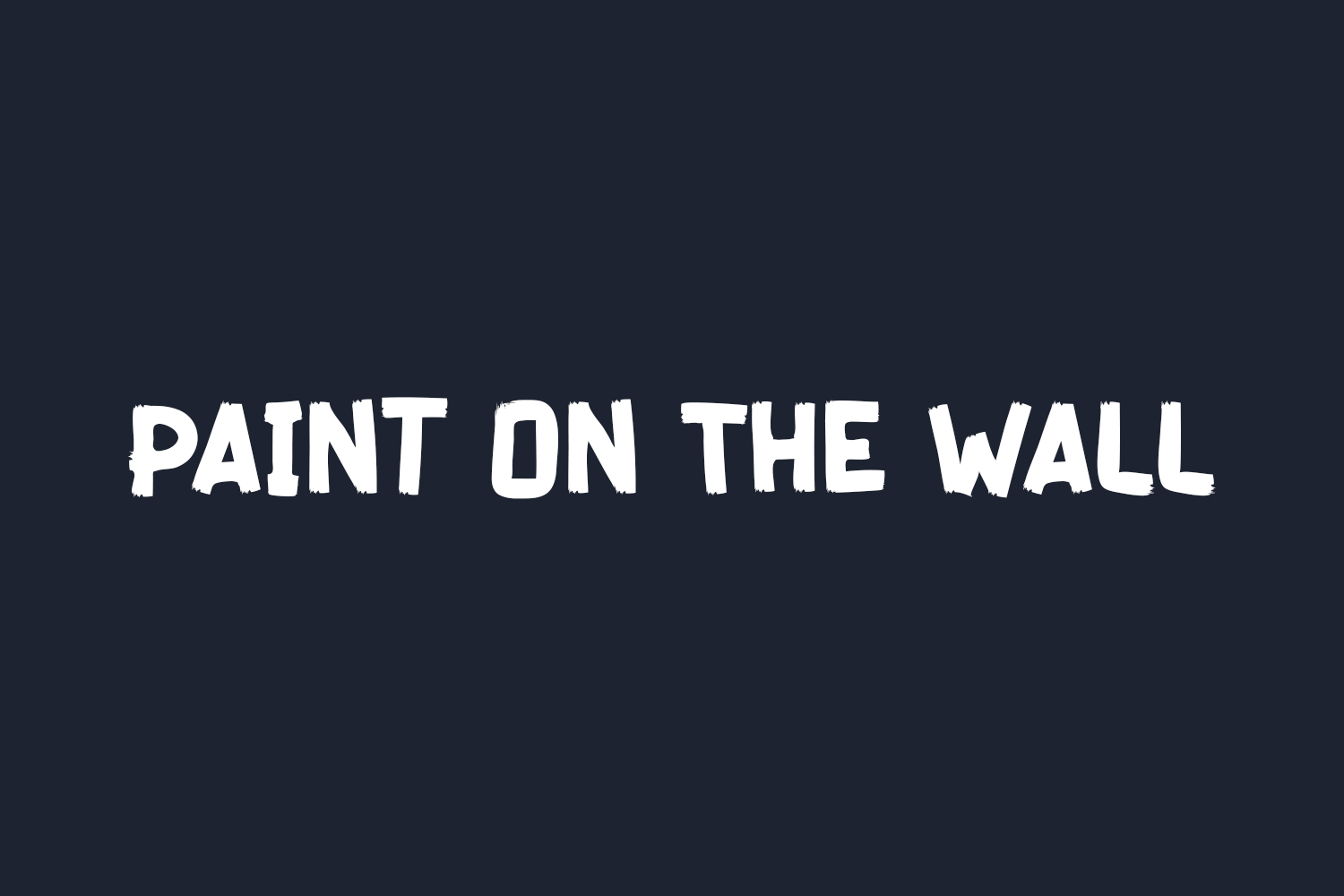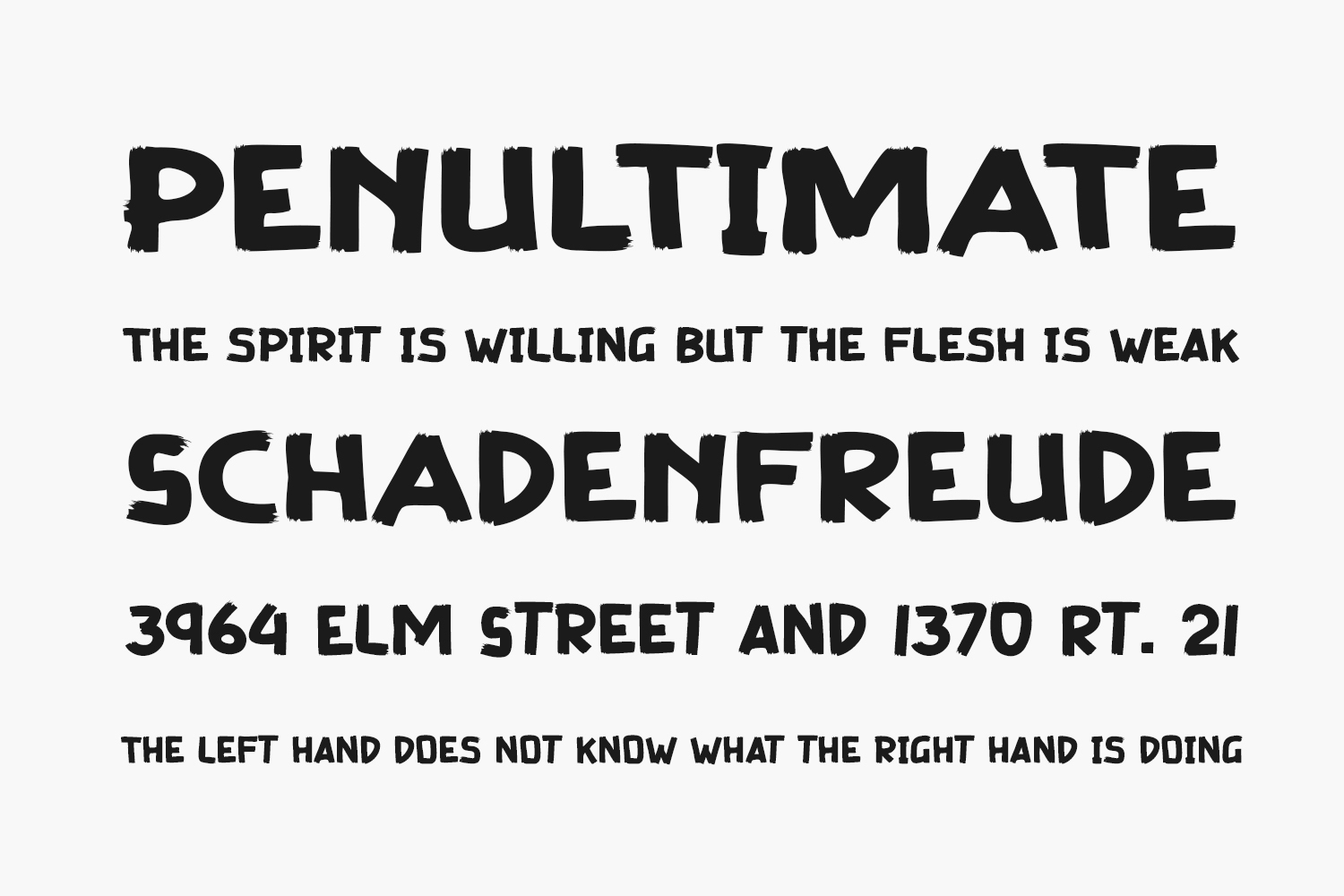
Paint On The Wall Free Font is a cool, bold and paint brushed display font. Whatever the topic, this font will be a wonderful asset to your font library, as it has the potential to enhance any creation. Paint On The Wall Free Font was designed by Tokopress and is free for personal use only. Please purchase the full version for commercial use.